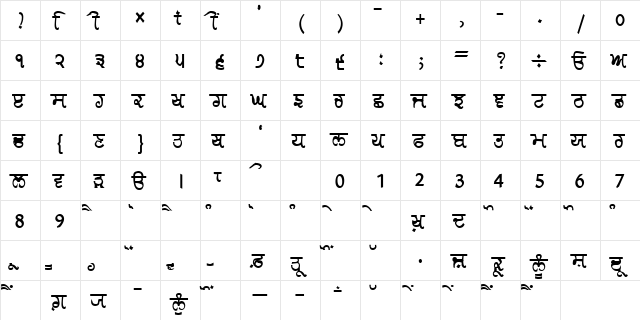
AkrutiPnjRanjeeta Bold
Design Context for AkrutiPnjRanjeeta Typeface
AkrutiPnjRanjeeta offers clean, dependable letterforms without strong stylistic allegiance, making it a practical choice for designers who need flexibility. The heavy weight commands attention and anchors typographic hierarchies.